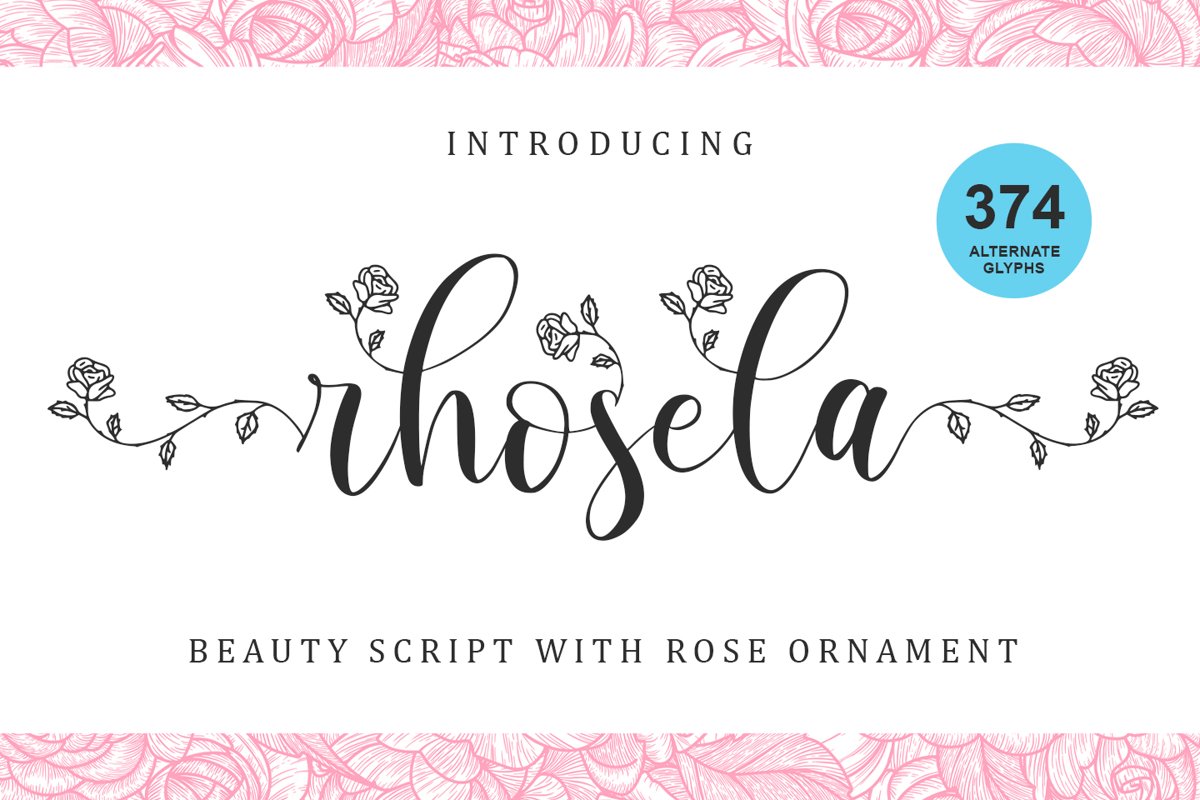
Rhosela -Floral Calligraphy-
rhosela
introducing
RHOSELA
-beautiful rose calligraphy-
it is great for branding, packaging, quotes, wedding card, logo, signature, t-shirt design, card, banner, and more.
Came with 374 alternate glyphs.
Every lowercase character has 6 alternate, and it is very easy to access it.
- 374 lowercase alternates